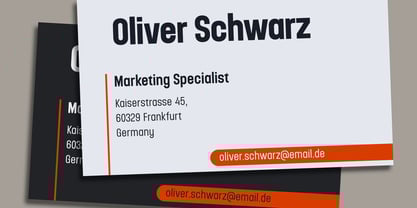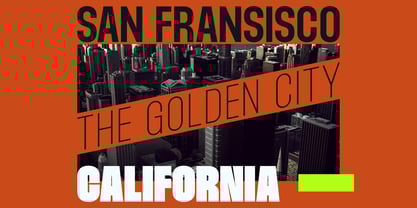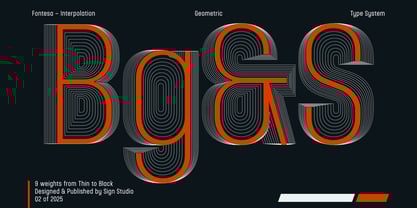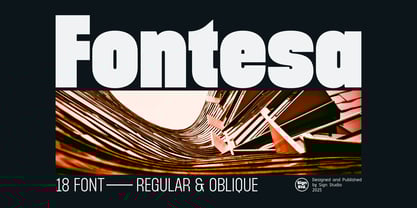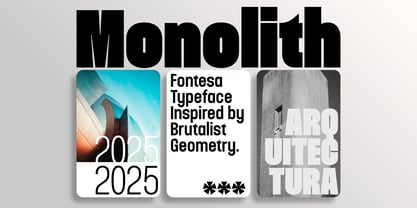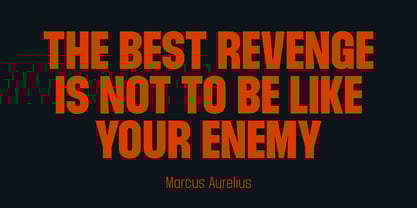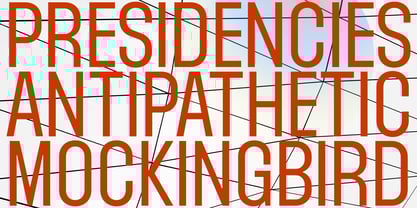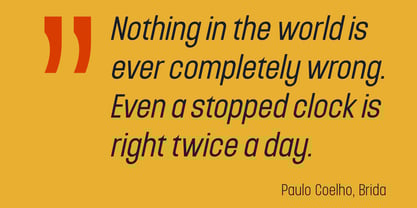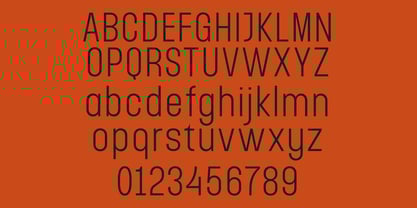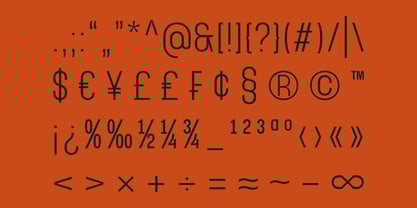
Fontesa
by Sign Studio
The Fontesa Font Family was designed by Sugi Yanto and published by Sign Studio. Fontesa contains 18 styles and family package options.
Fontesa from Sign Studio, is a clean, modern sans serif font that blends minimalism with flexibility. It is inspired by the Brutalist Geometry style. This exceptional typeface family features nine different weights, each of which is available in a 12-degree beveled version. This gives designers the flexibility to create eye-catching, standout brand elements. Fontesa's semi-condensed design provides a striking aesthetic that can be customized to meet a variety of creative needs.
Fontesa is an elegant, refined typeface that ensures high legibility, making it ideal for print and digital applications. Whether designing a sleek website, an eye-catching poster, or a memorable logo, Fontesa allows for easy adaptability, enhancing your message with a modern style. Moreover, its extensive language support ensures your designs can reach a global audience without compromising style.
It is highly versatile, where modern design meets functionality. It strikes the perfect balance between sophistication and clarity, taking your commercial projects to the next level.